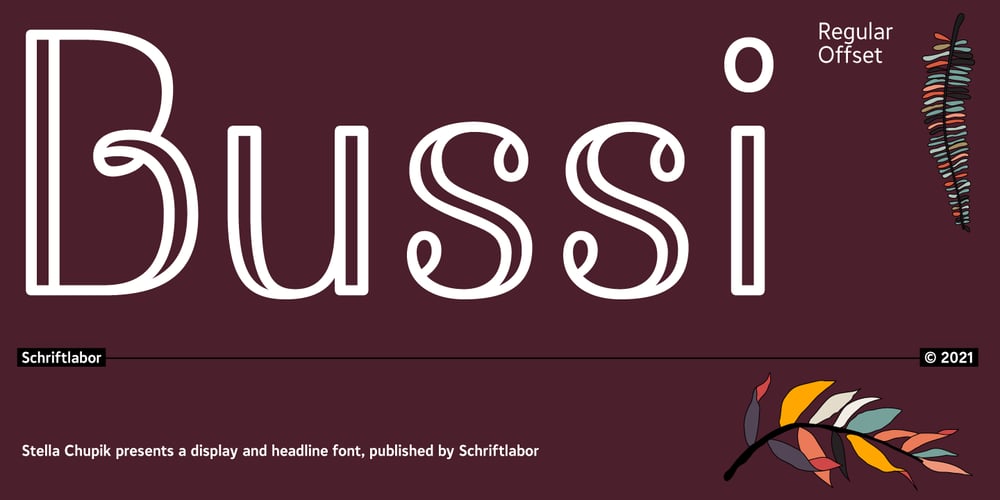
Bussi Font Family was designed by Stella Chupik and published by Schriftlabor. Bussi contains 2 styles and family package options. Bussi is an inline font family full of extras. It is rich with alternatives and symbols, which makes it a playful font to use. It was inspired by hand lettering and bullet journaling. The font is perfect for branding and packaging to bring your extra brand personality—an ideal font to use for stationery design or even movie titles. Versatile and high-quality Bussi will be your new font love.Bussi was inspired by hand lettering and bullet journaling. The first drafts were designed during studying for my high school graduation, where I would focus more on the headline lettering than on the actual content. I tried to motivate myself by lettering joyful, swirly headlines, and keywords. Originally designed as a caps-only headline font, over the years more and more letters and symbols were added, resulting in nearly 1400 glyphs and 5 different stylistic sets. Designed by Stella Chupik and Schriftlabor team.